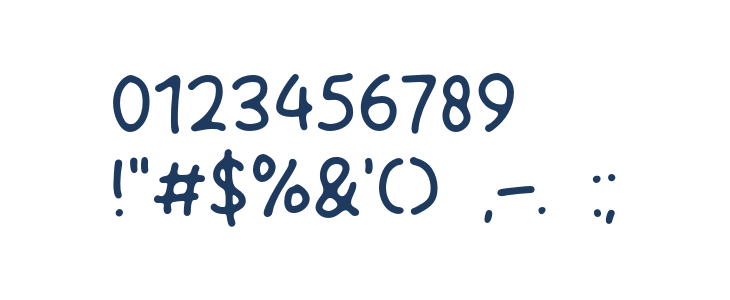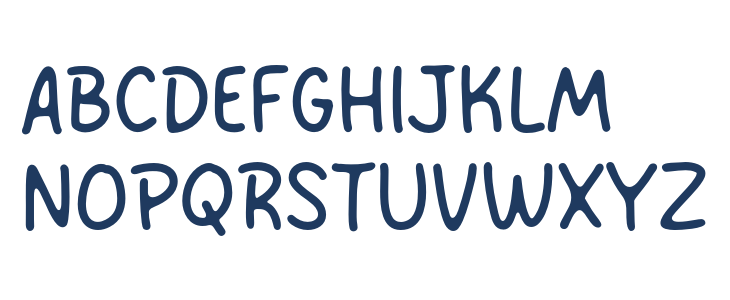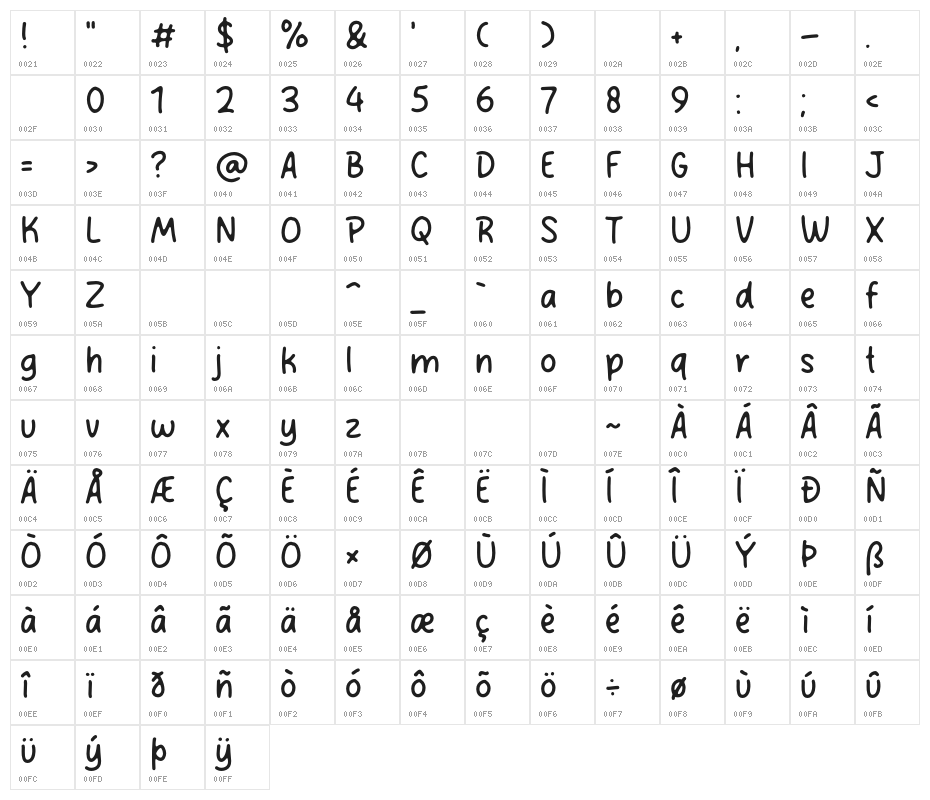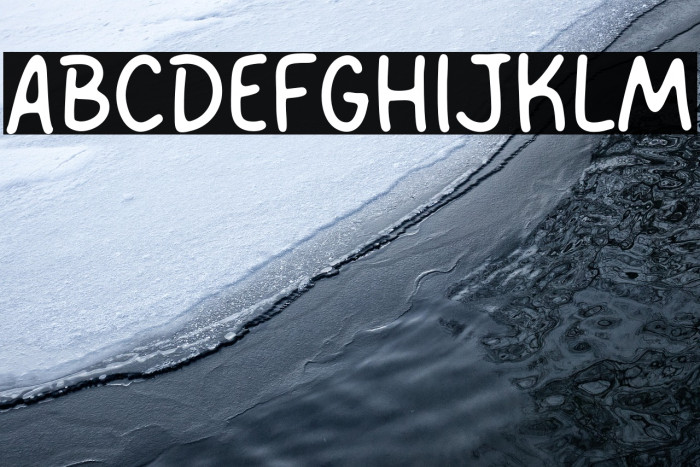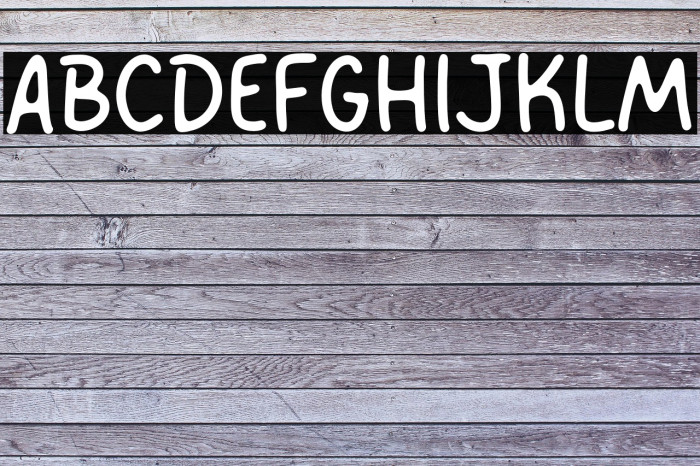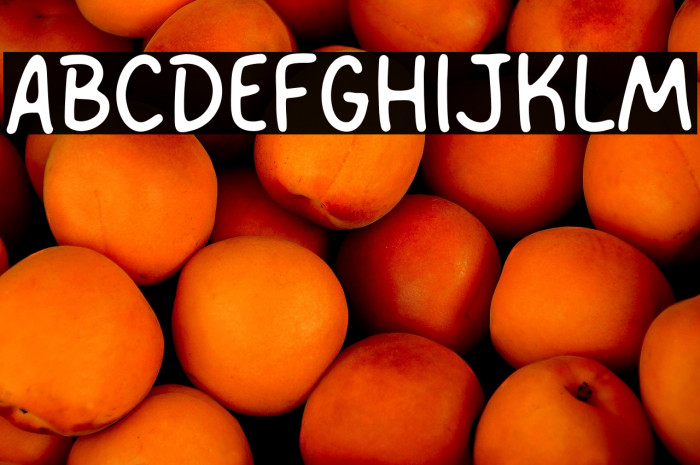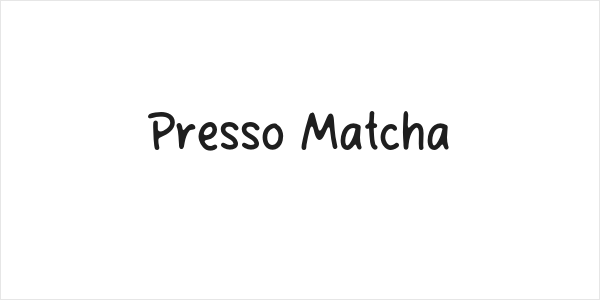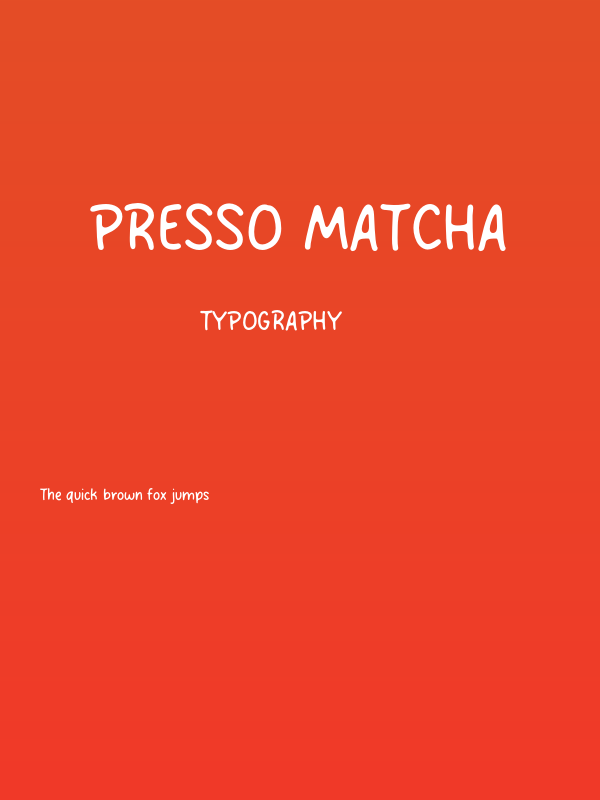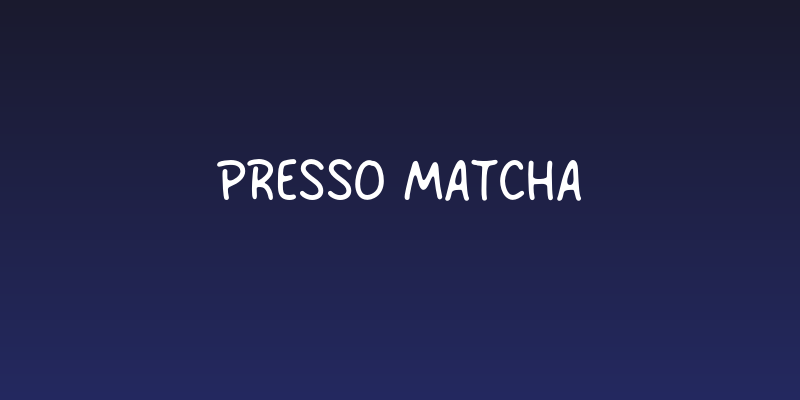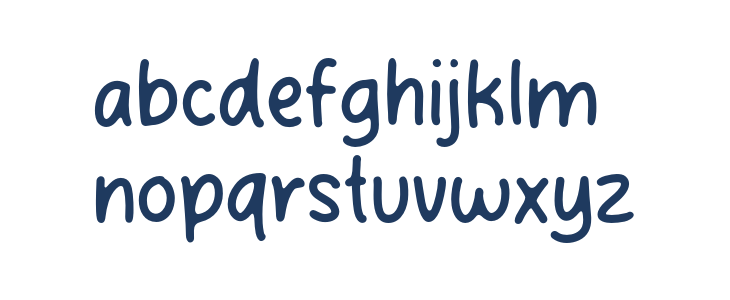
Presso Matcha Font
Presso Matcha Description
A playful, rounded handwritten typeface with consistent stroke width and informal, friendly character shapes. The letters have a casual, organic flow, with slightly irregular forms that enhance its approachable feel.
| Overall Style | Playful, Informal, Friendly |
| Use Case | Headlines, Short text, Logos, Informal communication |
| Proposed Projects | ChildrenΓ’β¬β’s books, greeting cards, casual branding, posters, educational materials, social media graphics. |